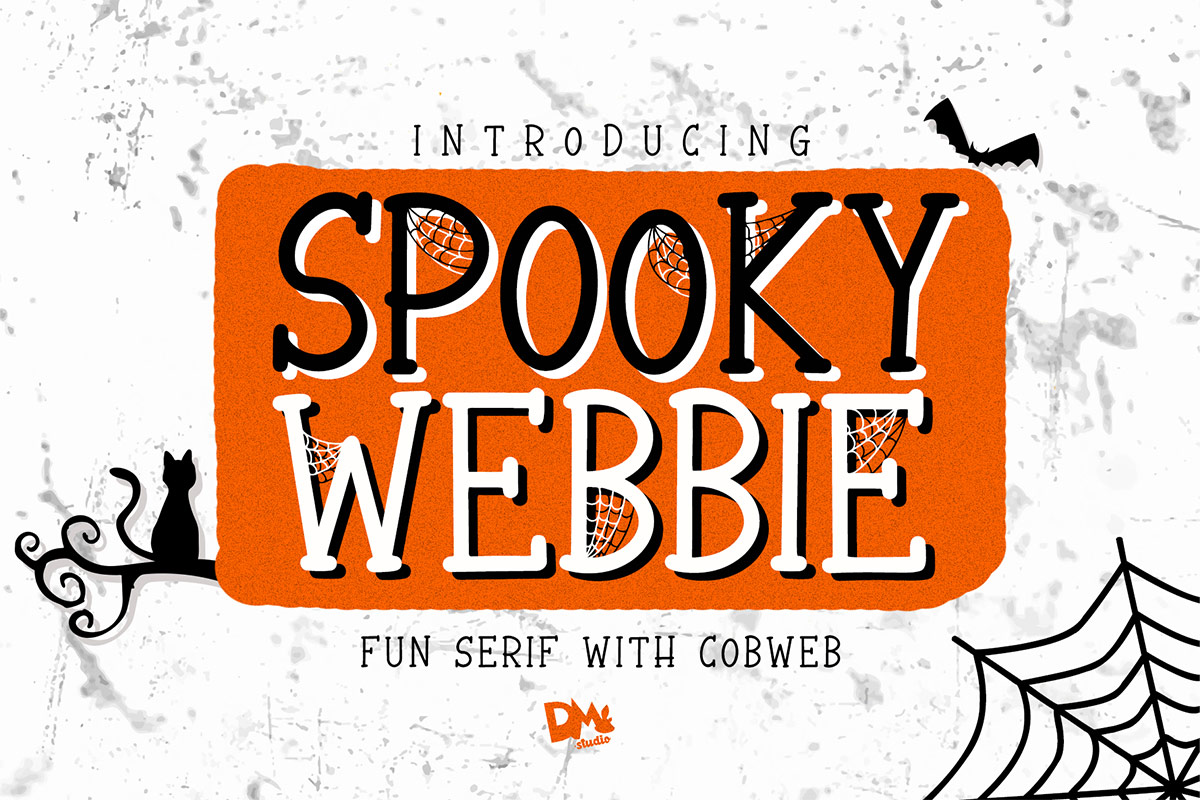
Spooky Webbie – Fun Serif With Web
The Spooky Webbie Fun Serif Font is a playful and creative typeface that combines the elements of spooky aesthetics with a fun and quirky design. With its unique serifs and web-inspired details, this font adds a touch of whimsy and mystery to your designs, making it perfect for Halloween-themed projects, posters, invitations, and other creative endeavors.
1. Playful and Spooky Style: The Spooky Webbie Font blends a playful and spooky aesthetic, making it perfect for capturing the atmosphere of Halloween and mystery. Its creative serifs and web-inspired details create a unique and eye-catching look for your designs.
2. Fun Serif Design: The font’s unconventional serifs and quirky details add a touch of character and whimsy to your typography. It balances the eerie and fun elements, making it suitable for projects that require a unique and captivating design.
3. Versatile Application: This font is versatile and well-suited for various design projects that aim to evoke a sense of mystery and creativity. Use it in Halloween-themed projects, posters, invitations, social media graphics, and more to add a touch of spooky charm to your designs.
4. Uppercase and Lowercase Letters: The font includes both uppercase and lowercase letters, providing flexibility and creative freedom in your designs. Mix and match the cases to create visually appealing and balanced typography.
5. Punctuation and Symbols: In addition to the alphabet, the Spooky Webbie Font includes a comprehensive set of punctuation marks, numerals, and common symbols. This ensures consistency and ease of use when incorporating the font into your design projects.
Embrace the whimsical and mysterious vibe of the Spooky Webbie Fun Serif Font. Let its playful serifs and web-inspired details add a touch of creativity and charm to your Halloween-themed projects, posters, and invitations. Create designs that captivate and intrigue your audience, blending the fun and spooky elements in a unique and captivating way.